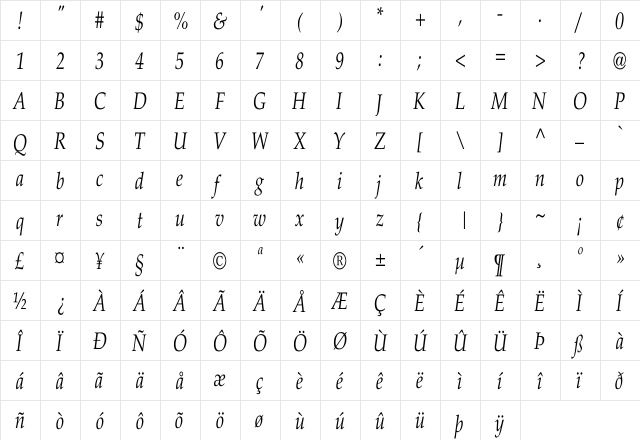
Palatino-Italic Cn Regular Font Preview
Palatino-Italic Cn Regular
Palatino-Italic Cn Regular Font Details
Design Context for Palatino-Italic Cn Typeface
Palatino-Italic Cn offers clean, dependable letterforms without strong stylistic allegiance, making it a practical choice for designers who need flexibility. The slanted form adds forward momentum and visual energy.